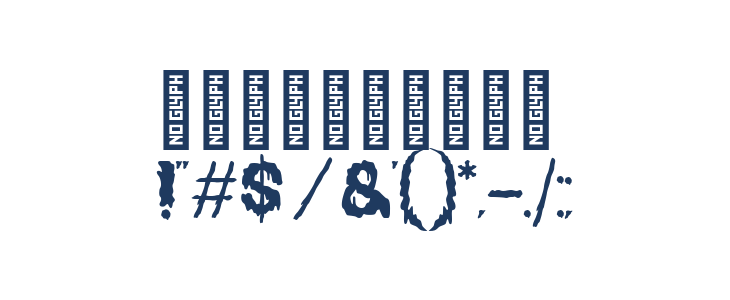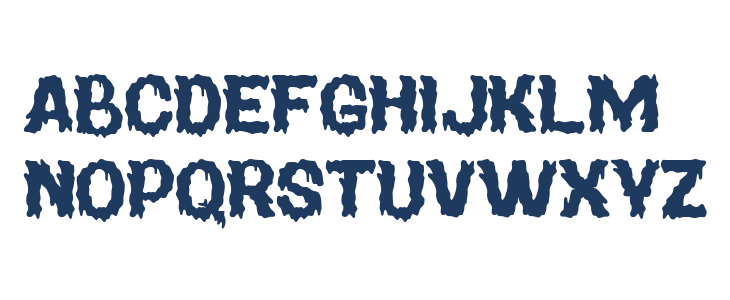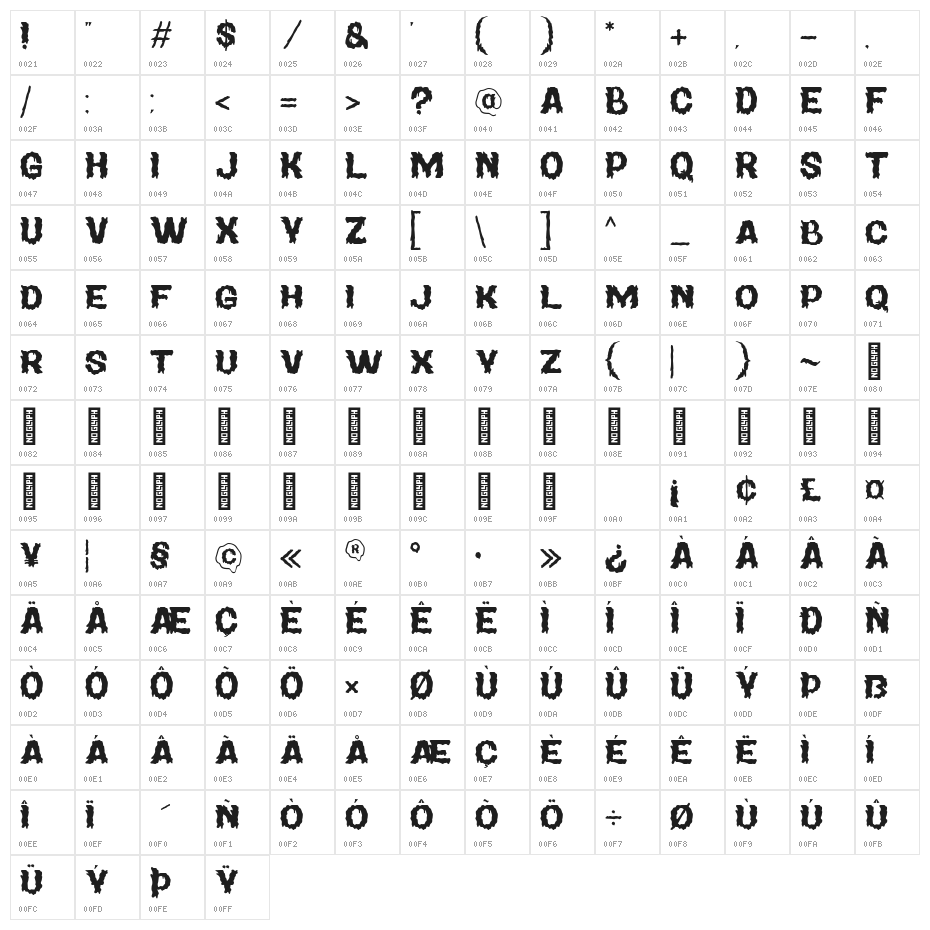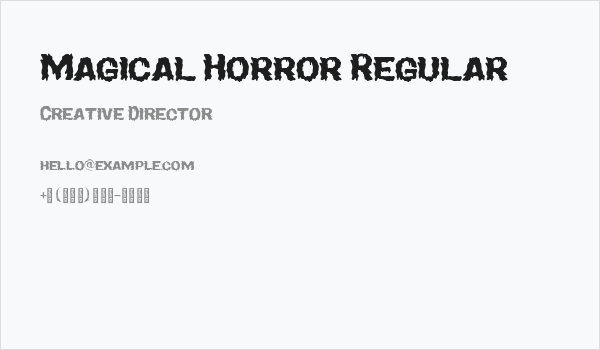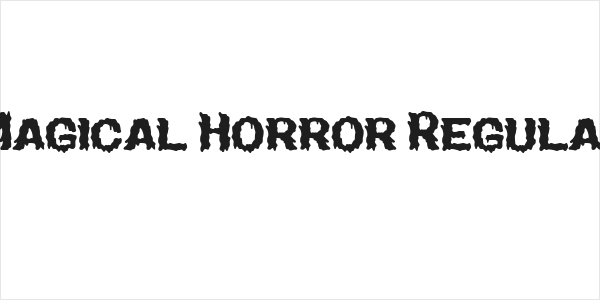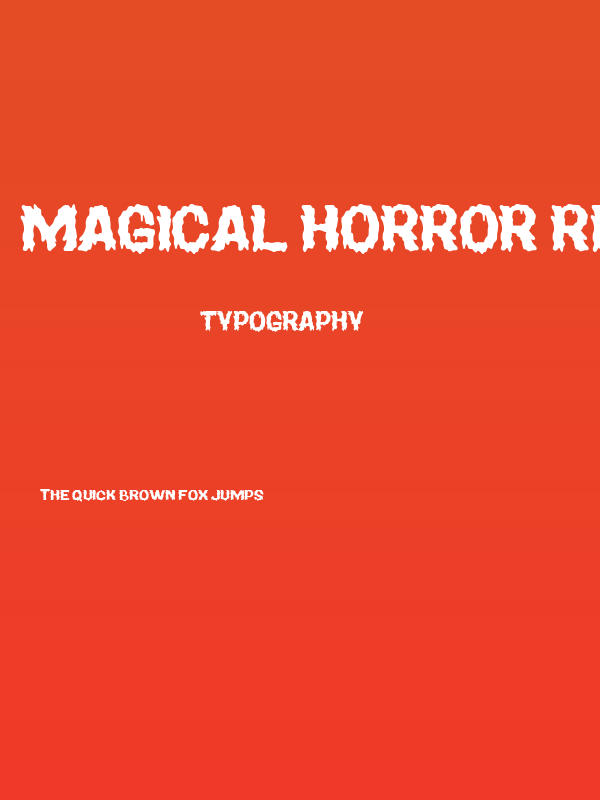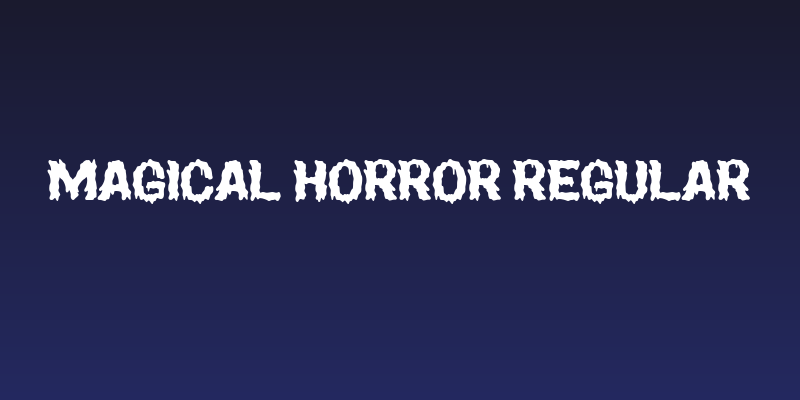
Magical Horror Regular Font
Magical Horror Regular Description
A bold, jagged, and irregular display font with rough, torn edges, evoking a sense of horror or supernatural themes. All characters are uppercase, with uneven contours and a distressed appearance, making it highly decorative and attention-grabbing.
| Overall Style | Decorative, Horror, Grunge |
| Use Case | Headlines, Posters, Logos, Event Titles |
| Proposed Projects | Halloween posters, horror movie titles, haunted house flyers, spooky event branding, themed party invitations. |